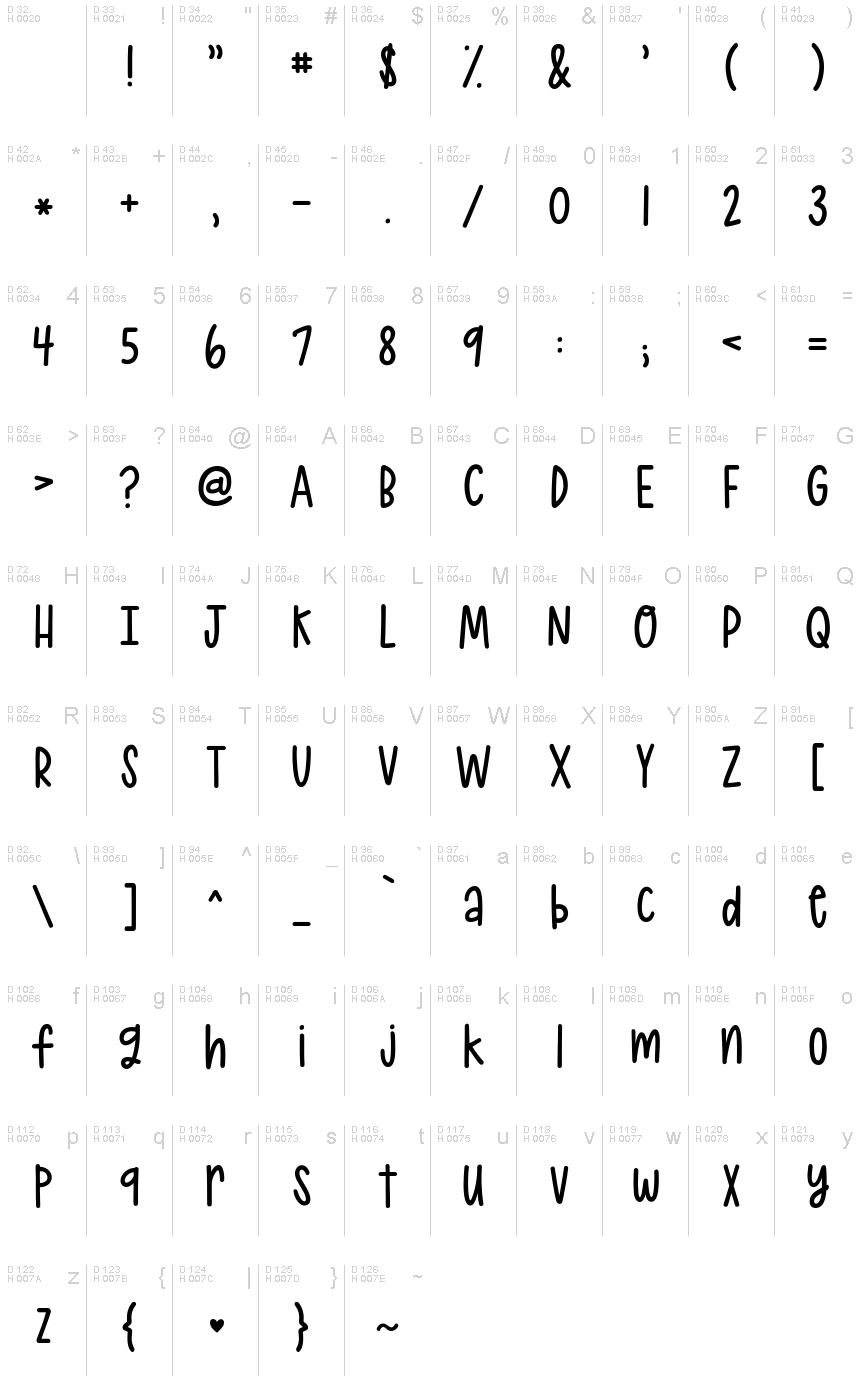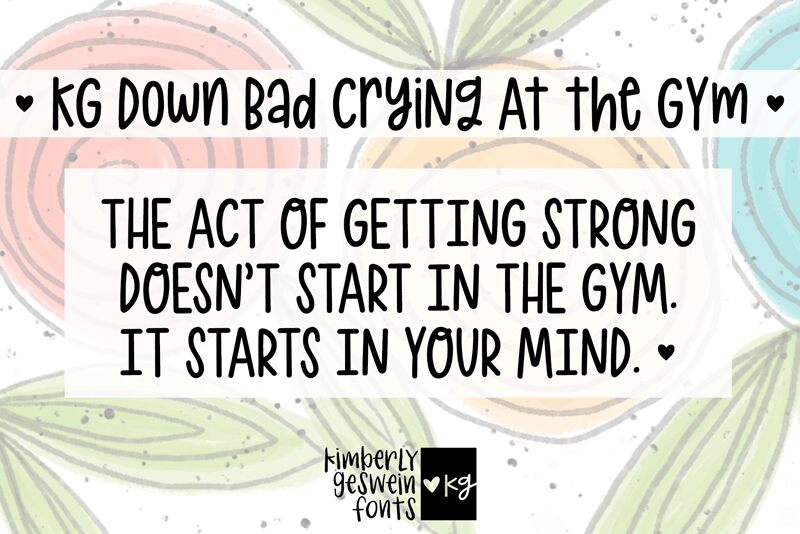
KG Down Bad Crying At the Gym
Crafted with a distinctive handwritten flair, the KG Down Bad Crying At the Gym font by Kimberly Geswein exudes a captivating sense of raw emotion and vulnerability. Its condensed width lends an air of intimacy, inviting the viewer to connect with the font's expressive forms. The uneven line work and organic flourishes evoke a visceral, heartfelt quality, evoking a range of emotive responses.
This versatile font can find its place in a variety of design contexts, from editorial layouts to branding materials, where it can lend a genuine, personal touch. Its emotive qualities make it well-suited for projects aiming to convey a sense of authenticity, vulnerability, or personal narrative, such as in the realms of self-help, mental health, or personal journaling.